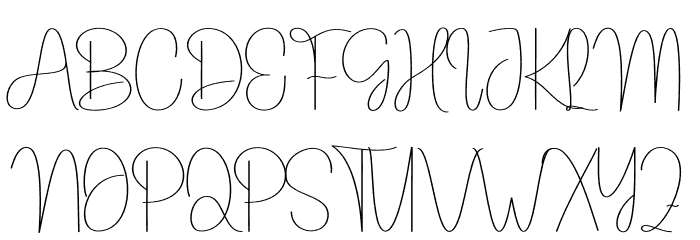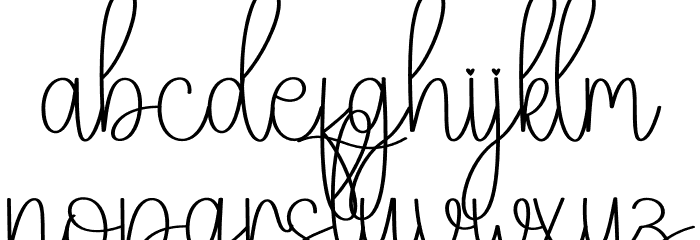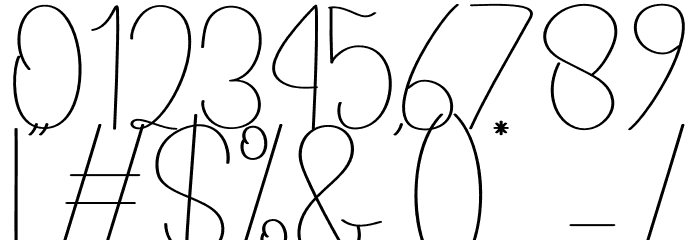
Spooky Spell Font
This font features a whimsical and playful script style, characterized by its flowing, interconnected letters that mimic the fluidity of handwriting. The uppercase letters are tall and slender, with a slight slant, giving them an elegant yet casual appearance. The lowercase letters maintain a consistent style, with loops and curves that add to the font's charm. Numbers and special characters follow the same aesthetic, ensuring a cohesive look across all text. The overall design is light and airy, making it suitable for projects that require a touch of elegance and personality.
A whimsical script font with flowing, interconnected letters and a playful, elegant style.
- Font: Spooky Spell
- Proposed Projects: Ideal for invitations, greeting cards, branding, and any project that requires a personal, handwritten touch.
- Category: Script
- Weight: Light
- Use Case: Headlines, Logos, Invitations